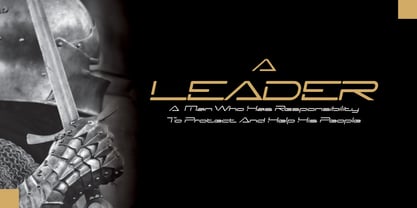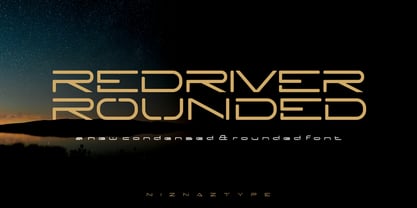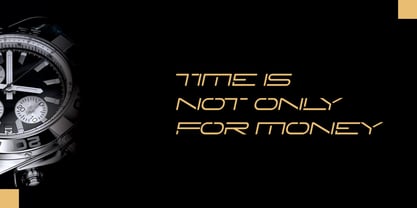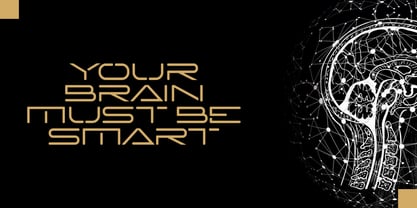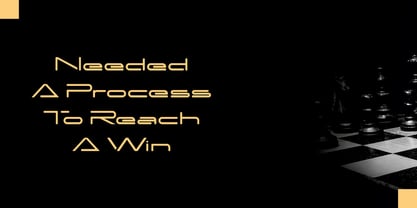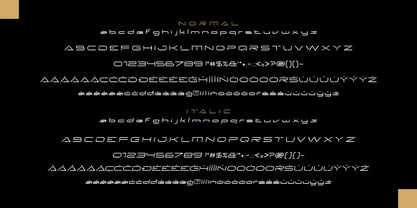
Redriver Rounded
by Niznaztype
The Redriver Rounded Font Family was designed by Muhammad Nazarudin and published by Niznaztype. Redriver Rounded contains 2 styles and family package options. More about this family
Redriver Rounded is a postmodern font with futuristic style. Redriver Rounded is family of Redriver font. But Redriver Rounded have a rounded shape in every corner of glyph and condensed style. This font suitable for postmodern, futuristic and contemporary. Redriver Rounded is perfect for futuristic design, postmodern arts, editorial design, posters, t-shirt, book cover, headlines, advertising, branding, movies titling. Redriver Rounded consist of : - Uppercase - Lowercase - Numeral and punctuation - Multilingual Language Enjoy my font work Thank a lot font,
Designers: Muhammad Nazarudin
Foundry: Niznaztype
Redriver Rounded